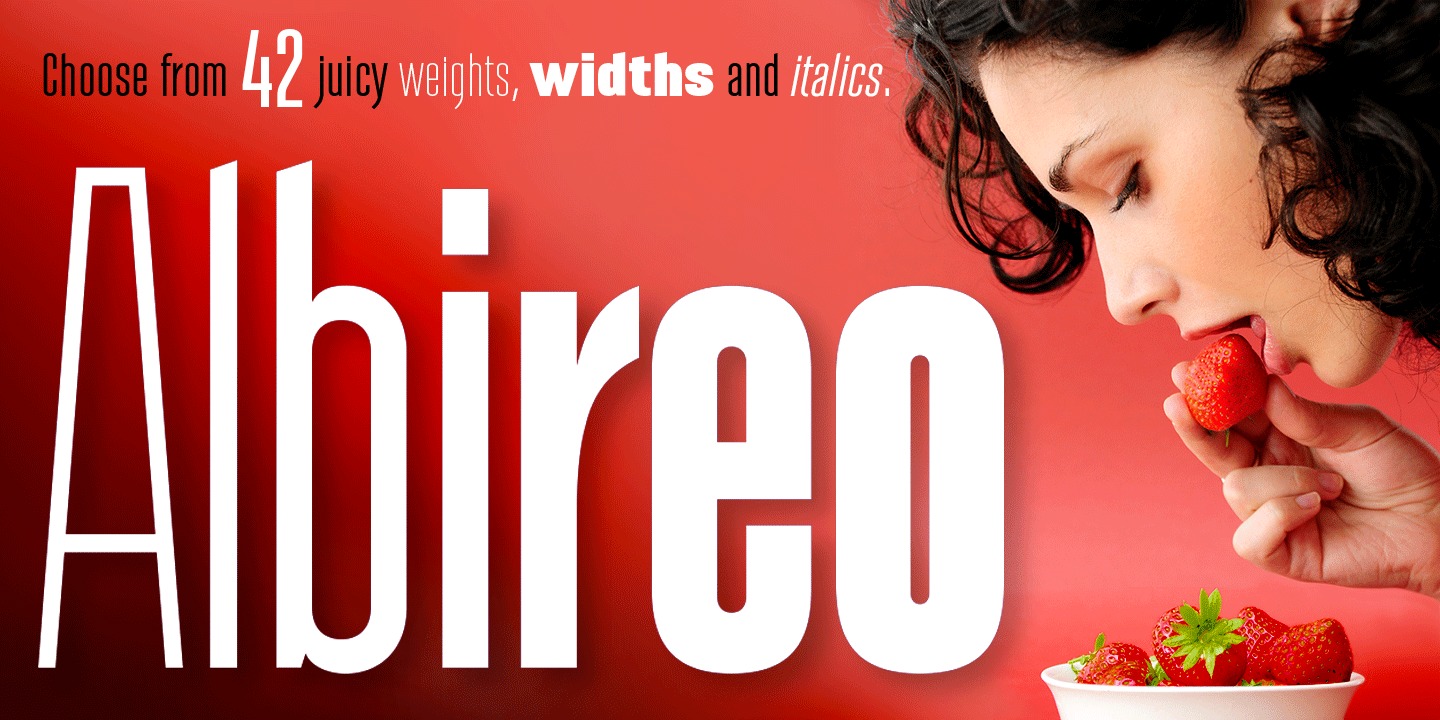
Albireo Font Family
Albireo Font Family is a typeface designed for moments when you have more to say than space on the page. It also looks fantastic spread across the page as if space doesn’t matter. Expertly crafted with a keen eye for detail, Albireo is a very practical and adaptable typeface that’s neutral enough to work almost anywhere a highly condensed, sans-serif typeface is needed. Despite its practical nature, it definitely has style. It really stands out when used for headlines or subheadings in magazines, brochures, posters, newspapers, flyers, or online. With 42 weights, widths, and italics, there’s plenty of flexibility to fit every word perfectly. You can buy individual fonts or save money by purchasing packs of the 14 fonts in each width (Extra Condensed, or Semi-Condensed). Save even more by buying the full collection, which includes the 42 separate fonts and two variable fonts (upright and italic) covering all weights, widths, and everything in between. So, where does the name come from? Look up at the summer night sky. Albireo is a binary star in the constellation Cygnus. Through a backyard telescope, the star appears as two brilliant components—one orange and one blue. The idea for the typeface started when I needed a newspaper headline about space exploration. I couldn’t find the right typeface, so I drew my own letters and eventually expanded them into an entire type family.